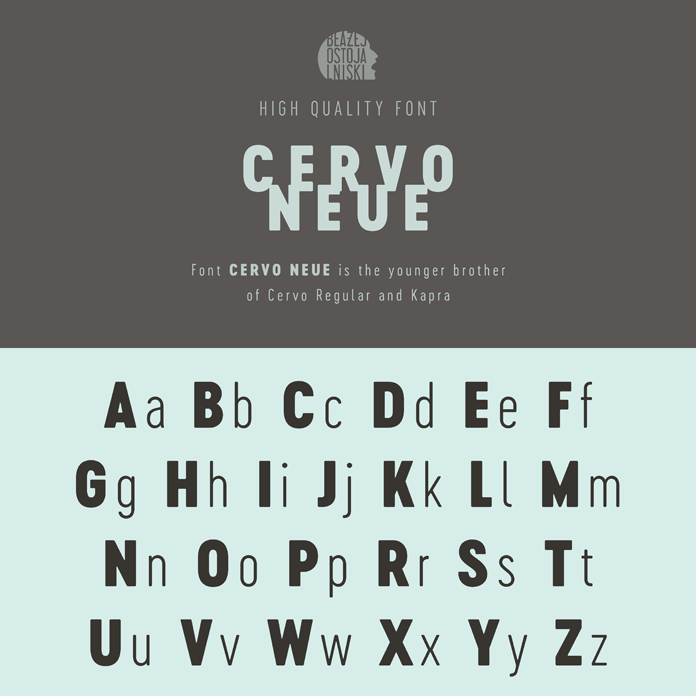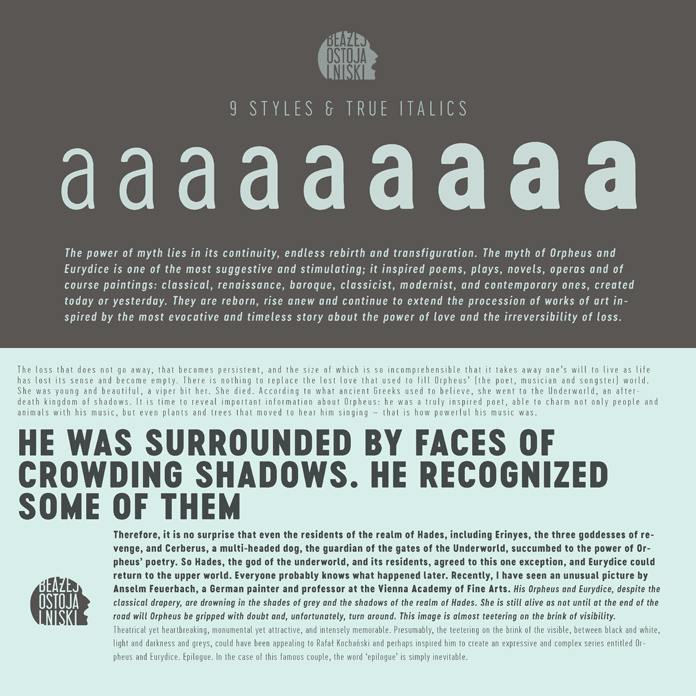
Cervo Neue, a narrow sans serif font family with round edges from Typoforge Studio.
Cervo Neue is the successful revision of Typoforge Studio’s earlier Cervo font. They have optimized and extended this typeface into a more functional font family consisting of 9 weights ranging from Thin to Black plus true Italics for each weight, which results in a total of 18 fonts. The higher accents over the glyphs as well as enlarged punctuation and old-style numerals differ from the previous version. Furthermore, the weights of Semi Bold, Bold, Extra Bold, and Black have been added to the family. Due to its distinctive narrow design, I would recommend this typefaces for the use as display font. Cervo Neue is a nice choice for logo designs, headlines in magazines, short sections of text in editorial work, a variety of typographic projects, etc. The full family is available on MyFonts as both ordinary desktop typefaces and webfont. For additional information on this unique sans serif family, feel free and follow the link below.